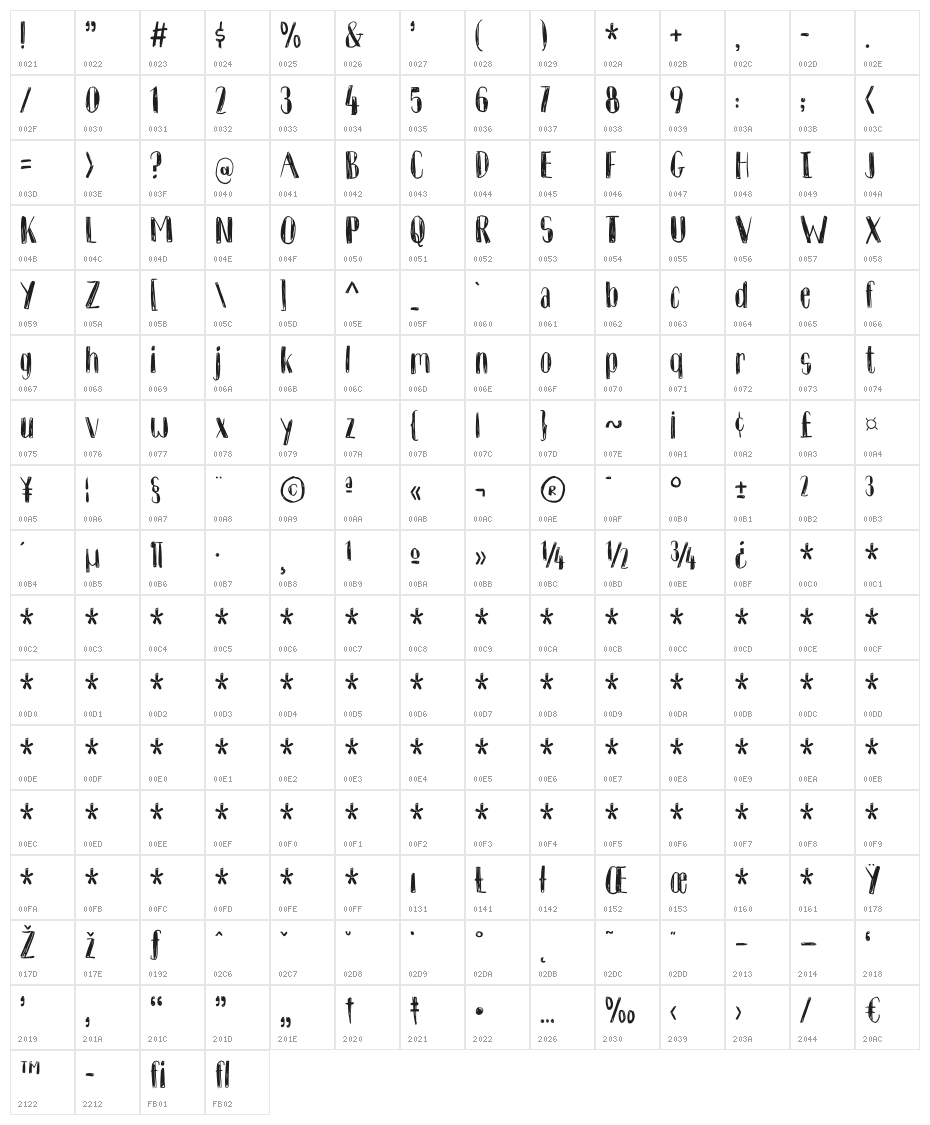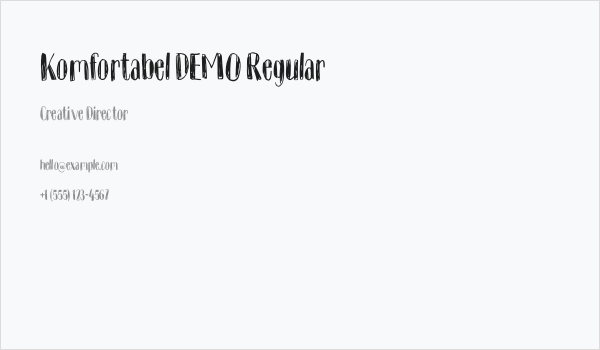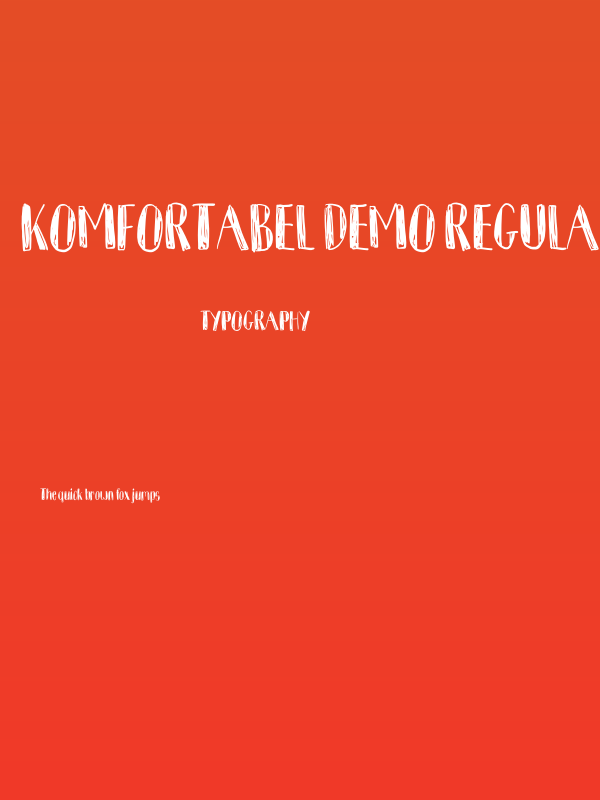
Komfortabel DEMO Regular Font
Komfortabel DEMO Regular Description
This font features a bold, hand-drawn style with a playful and artistic flair. The letters are irregular and have a sketch-like appearance, giving them a dynamic and energetic feel. The strokes are thick and uneven, adding to the handmade aesthetic. The uppercase and lowercase letters maintain a consistent style, while the numbers and special characters complement the overall design. This font is ideal for projects that require a creative and informal touch, such as posters, invitations, and artistic branding.
| Proposed Projects | Ideal for creative projects like posters, invitations, and artistic branding. |